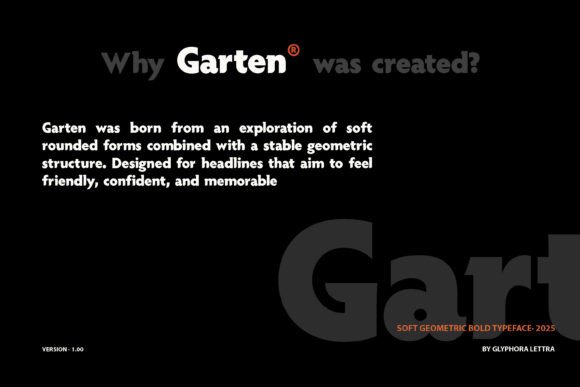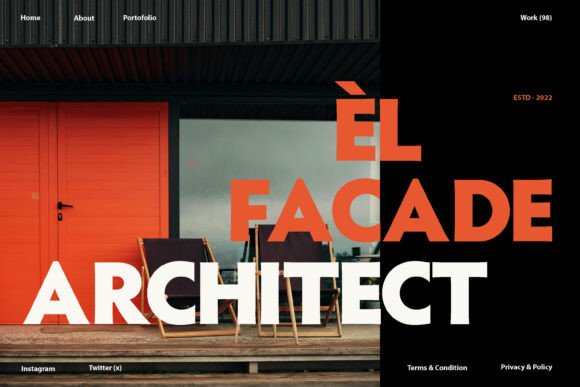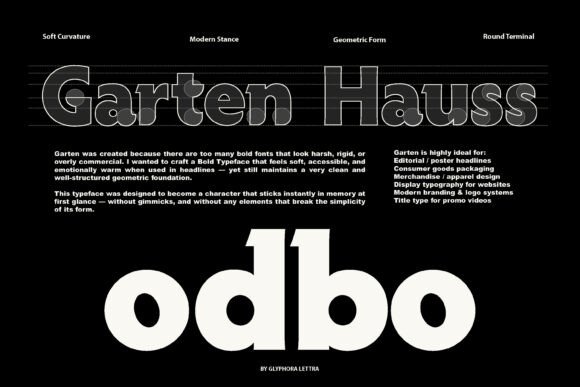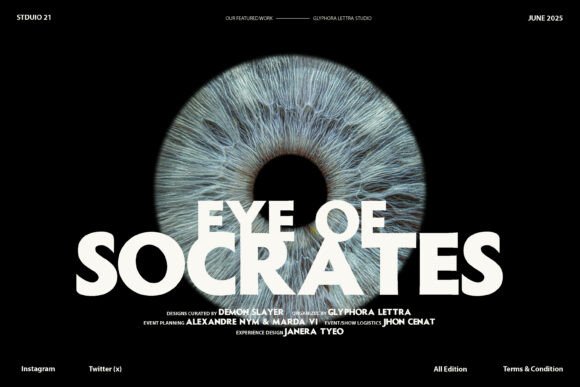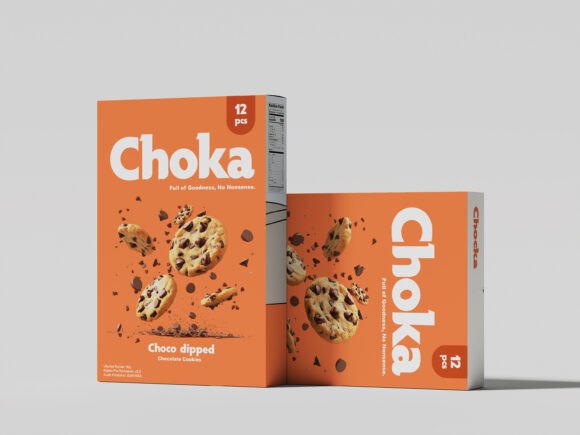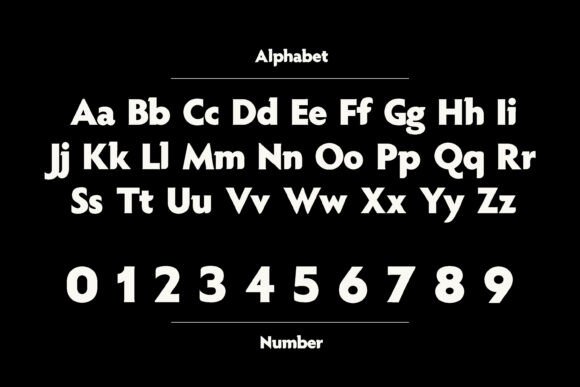
Introducing Garten Font: The Future of Clean Design
In the world of typography, fonts play a crucial role in shaping the visual identity of a brand. For designers and crafters, selecting the right font can make all the difference in creating a lasting impression. If you’re looking for a typeface that embodies modern minimalism with a touch of approachability, look no further than Garten font. This soft geometric bold typeface is poised to revolutionize the way we approach clean design.
The Anatomy of Garten Font
Garten font is built on a sturdy, structured foundation, making it perfect for headlines and logotypes that demand attention. Its heavy weight and sophisticated geometry ensure maximum impact, while its “ink-trap” inspired details and softened corners add a touch of humanity and contemporaneity. This harmonious blend of structure and softness makes Garten an exceptional choice for tech startups, architecture firms, and high-end lifestyle branding.
The Benefits of Garten Font
So, what sets Garten font apart from other typefaces? Here are just a few benefits that make it an attractive choice for designers and crafters:
• Modern Minimalism: Garten font embodies the principles of modern minimalism, making it perfect for brands that value clean and simple design.
• Approachable Curves: The softened corners and “ink-trap” inspired details give Garten a friendly and approachable feel, making it ideal for brands that want to connect with their audience.
• Versatility: Garten font is suitable for a wide range of applications, from tech startups to high-end lifestyle branding.
• Professional Look: The bold and sophisticated geometry of Garten font ensures a professional look that’s perfect for headers and logotypes.
How to Use Garten Font Effectively
To get the most out of Garten font, it’s essential to use it effectively. Here are some tips to help you make the most of this exceptional typeface:
• Pair with White Space: Garten font commands the page with its heavy weight and sophisticated geometry. Pair it with plenty of white space to lean into its “smart” architectural aesthetic.
• Use in Headers and Logotypes: The bold and professional look of Garten font makes it perfect for headers and logotypes that demand attention.
• Experiment with Colors: Garten font looks stunning in a range of colors. Experiment with different hues to find the perfect combination for your brand.
Why Designers and Crafters Love Garten Font
Garten font has quickly become a favorite among designers and crafters. Here’s why:
• Unique Aesthetic: Garten font offers a unique aesthetic that’s both modern and approachable.
• High-Quality Design: The font is designed with high-quality craftsmanship in mind, ensuring a professional look that’s perfect for branding and design projects.
• Easy to Read: Despite its bold weight, Garten font is easy to read, making it perfect for headers and logotypes.
Font Name Garten Font
Author Glyphora Lettra
In conclusion, Garten font is a game-changer for designers and crafters looking for a bold, professional look that’s both modern and approachable. Its unique aesthetic, high-quality design, and versatility make it an exceptional choice for a wide range of applications. Whether you’re working on a tech startup, architecture firm, or high-end lifestyle branding project, Garten font is the ultimate tool to help you create a lasting impression.